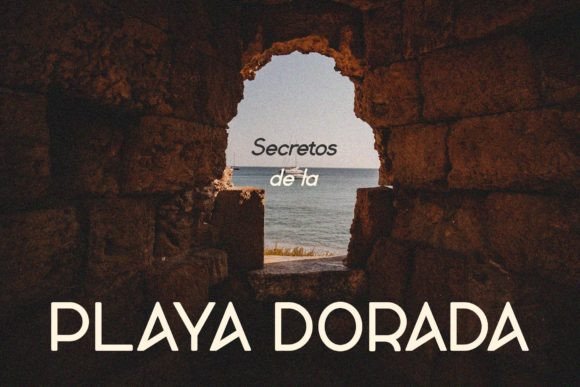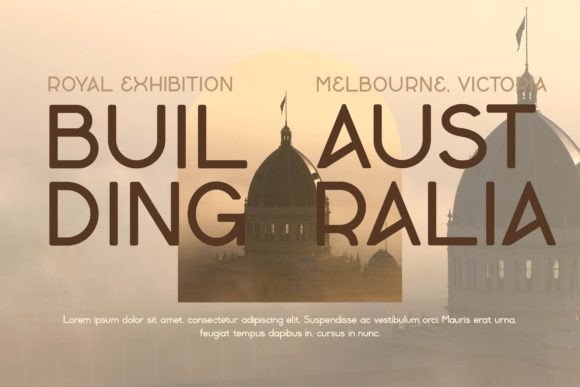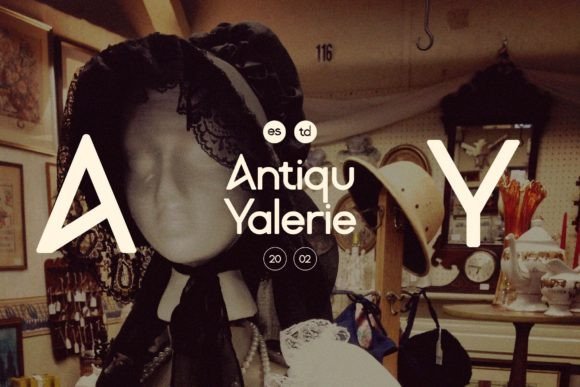
Introduction to Rexilya Font
Rexilya is a modern sans serif font that looks clean and stylish.
It has smooth lines and simple shapes, making it easy to read Perfect for websites, logos, and designs that want a fresh and modern feel.
Rexilya Font offers exceptional quality and versatility, making it a valuable addition to your design toolkit. Whether you’re creating for personal projects or commercial use, Rexilya Font delivers professional results.